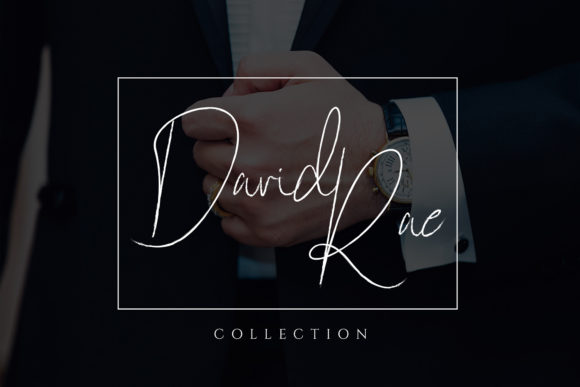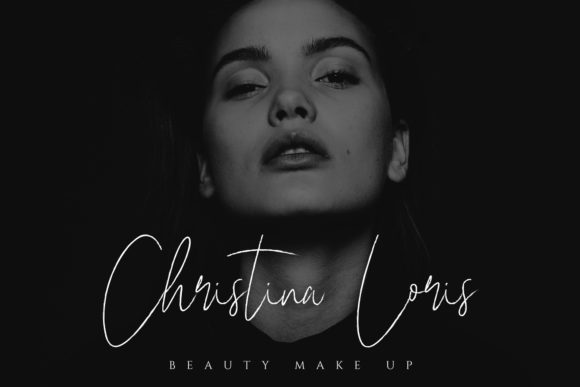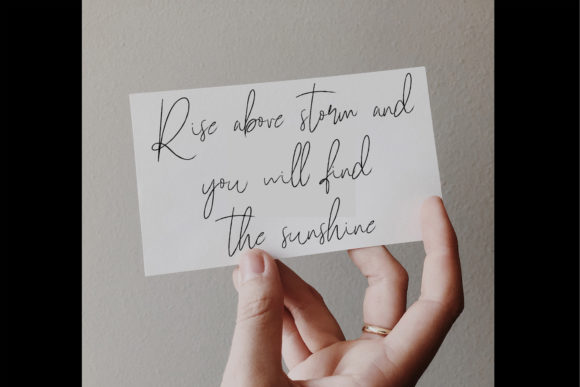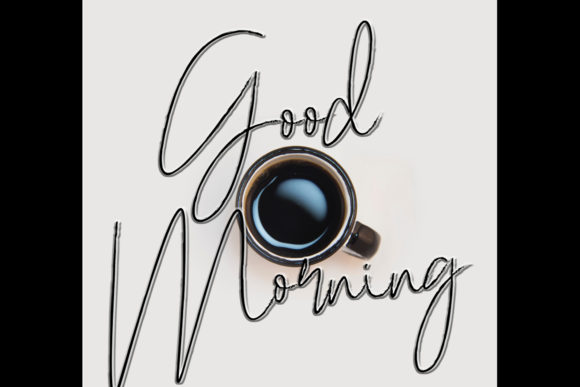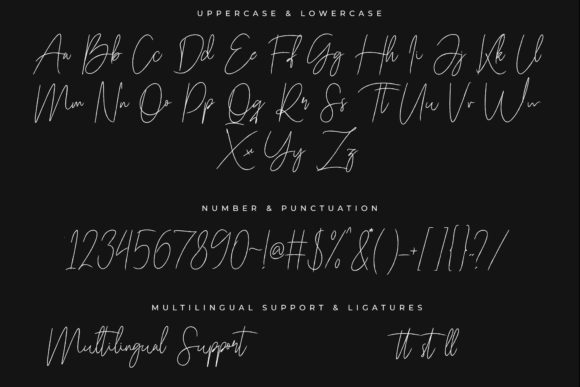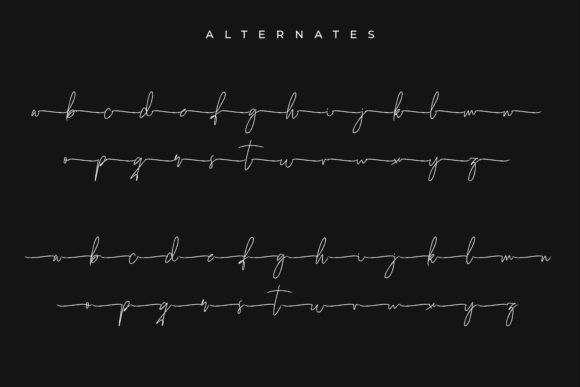
Have you ever stared at a blank page, waiting for inspiration to strike? The cursor blinks, and your mind goes blank. But what if you had the perfect tool to spark your creativity? For designers, finding the right font can be the difference between a good design and a great one. That’s where the Baltimare Font comes in – a flawless and refined handwritten font that’s sure to captivate your audience.
This elegant font is designed to make your designs shine. Its fine and flowing letters are a masterclass in typography, making it the perfect choice for creating radiant designs. Whether you’re a seasoned designer or just starting out, the Baltimare Font is a valuable addition to your toolkit. With its all-round style, you’ll be able to bring your vision to life and leave a lasting impression on your viewers.
Baltimare Font Key Features
- Font Style: Script, Decorative, Calligraphy
- Unique Characteristics: Hand-drawn, elegant, and cursive design, perfect for wedding invitations, greeting cards, and other special occasions
Baltimare Font Review
Overall, I’m quite impressed with the Baltimare font. ✨ Its unique blend of modern and vintage elements makes it a great choice for designers looking to add some personality to their projects. The font is highly legible, even at small sizes, which is a must-have for any font.
The Baltimare font has a lot of character, with some nice flourishes and details that add depth and visual interest. ✨ It’s particularly well-suited for use in titles and headings, where its bold and eye-catching personality can really shine.
- Highly legible, even at small sizes
- Unique blend of modern and vintage elements
- Nice flourishes and details add depth and visual interest
- Perfect for titles and headings
- May be too bold for some applications
- Lack of italic and bold-italic styles
- Not suitable for large blocks of text
Overall, I’d highly recommend the Baltimare font to designers looking to add some personality to their projects. While it may have some limitations, its unique style and high legibility make it a great choice for many applications.
Tip: Use Baltimare font for titles and headings to create a sophisticated and elegant look.
Tip: Use Baltimare font for text overlays or watermarks to add a touch of elegance to your images.
Tip: Use Baltimare font for headings and titles to create a professional and polished look.
The Baltimare font is ideal for:
– Luxury branding and packaging
– High-end marketing materials
– Elegant typography in images and graphics